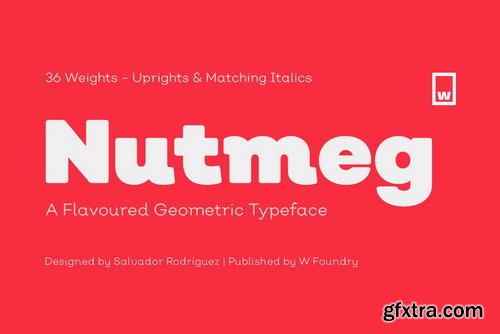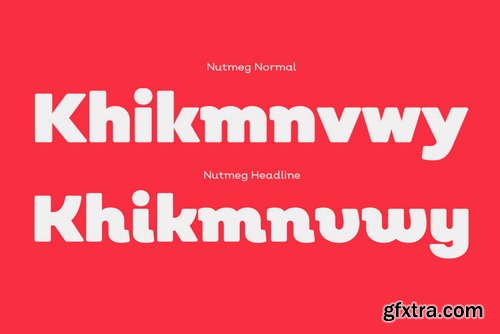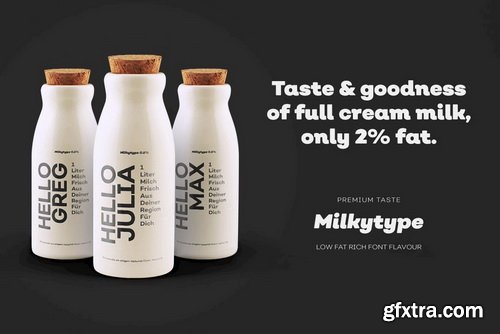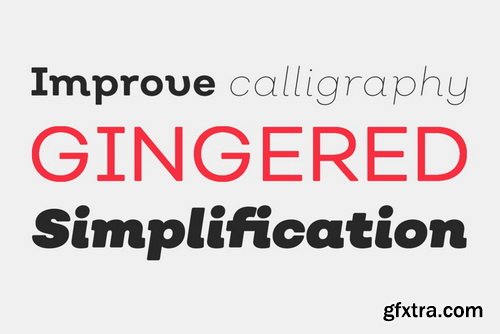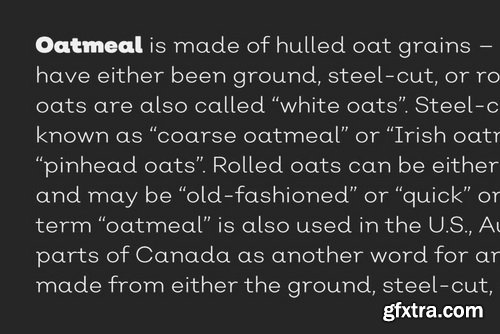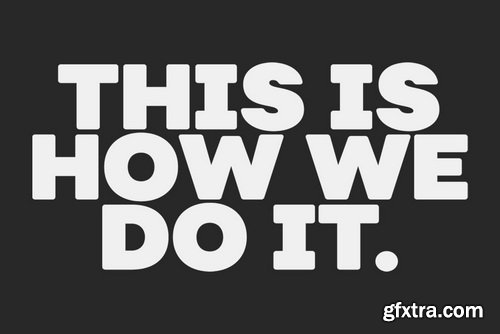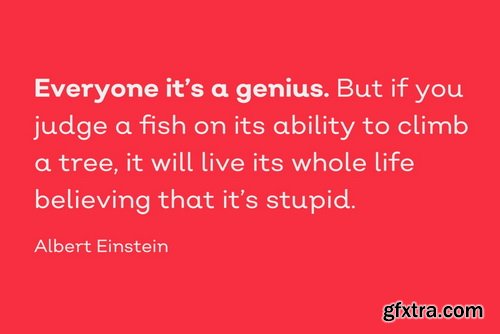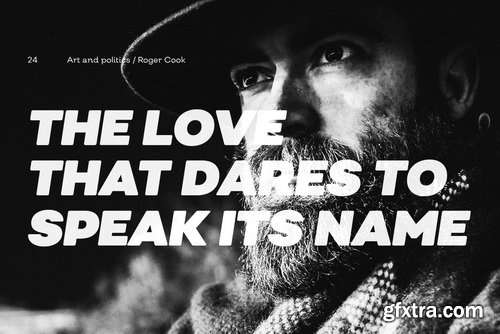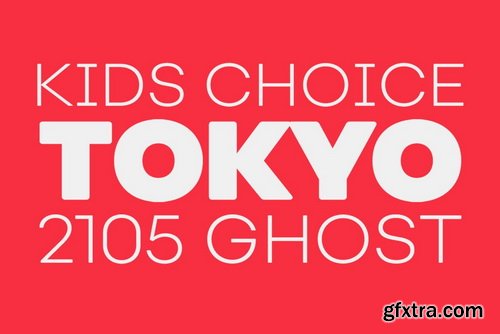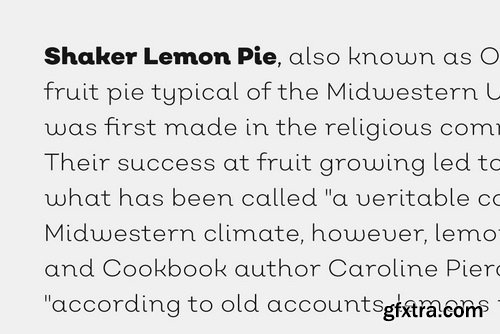
Nutmeg is a geometric typeface with a slight flavored touch. Although its structure is stick to the traditional forms, its details transform this typeface in a boldly project that separates it from other geometric fonts. Nutmeg’s texture can be perceived as a clean typeface that is comfortable to the human eye, furthermore, if you use it in big sizes Nutmeg’s details can be seen as a display font. Under these two ways of perceiving this type family, we took the decision of split this type project in two families: a cleaner and more rational Nutmeg versus a Headline version that has more flavored details at the end of the characters